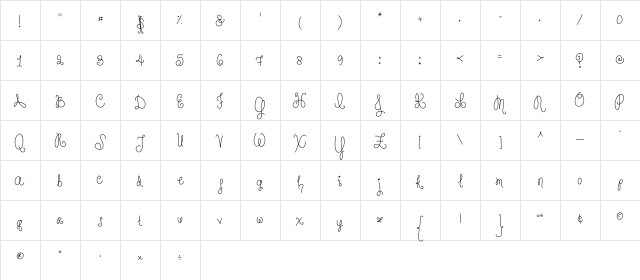
From ashes to beauty Medium
Design Context for From ashes to beauty Typeface
From ashes to beauty is a composed and adaptable typeface that performs quietly and consistently across a wide range of design contexts.